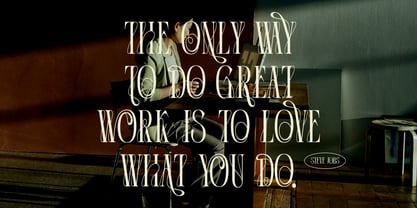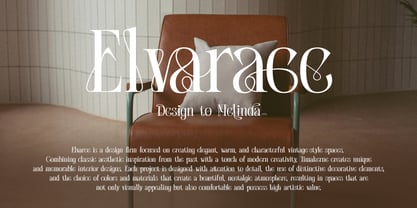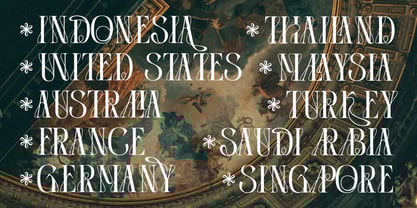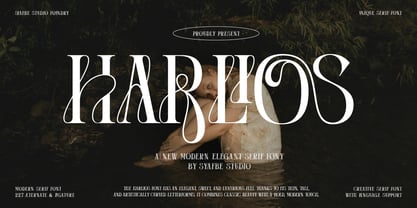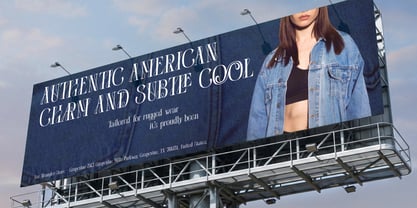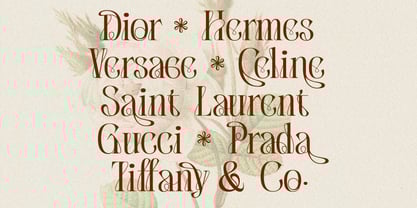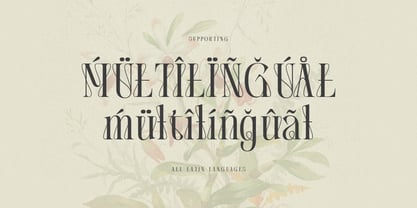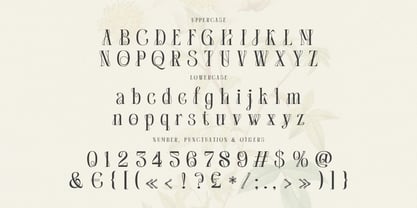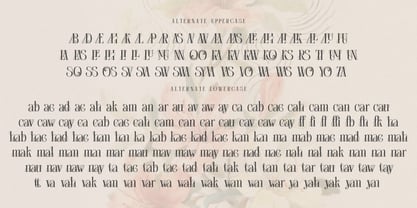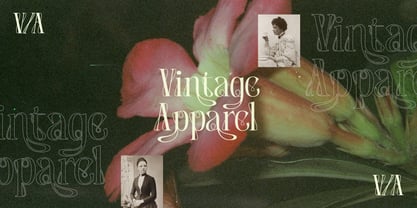
Harlios
by Syafbe
The Harlios Font Family was designed by Syafwan Mus and published by Syafbe. Harlios contains 2 styles and family package options.
The Harlios font features high-contrast decorative serif characters with a dramatic mix of thin and thick lines. The letterforms are enriched with long, artistic curves, creating a luxurious, elegant, and classy feel. Visually, this font immediately draws attention due to its unique, elegant, and characterful details, making it feel special compared to ordinary serif fonts. The Harlios philosophy represents a blend of classic beauty and modern boldness. The bold serif forms create an elegant, strong, and authoritative feel, while the curved ornaments convey an expressive, romantic, and exclusive feel. Therefore, this font is ideal for building a brand identity that seeks to appear premium, feminine, artistic, and memorable, especially for logos, branding, or visual designs that desire a more luxurious and distinctive look.